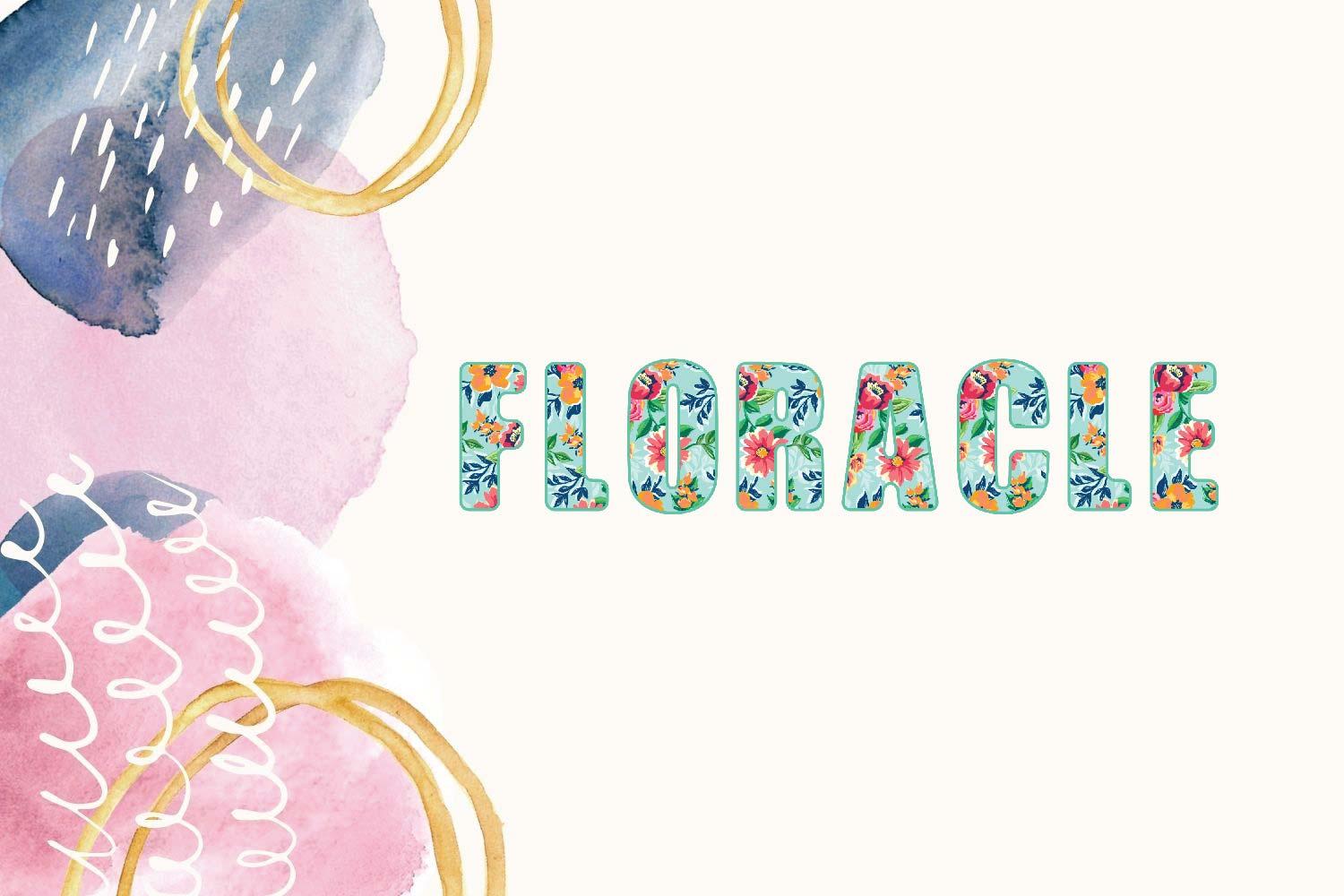
Floracle Font Description
Floracle is a gorgeous color font that is decorated with beautiful flowers and leaves. It is perfect to use for any spring or summer-themed design.